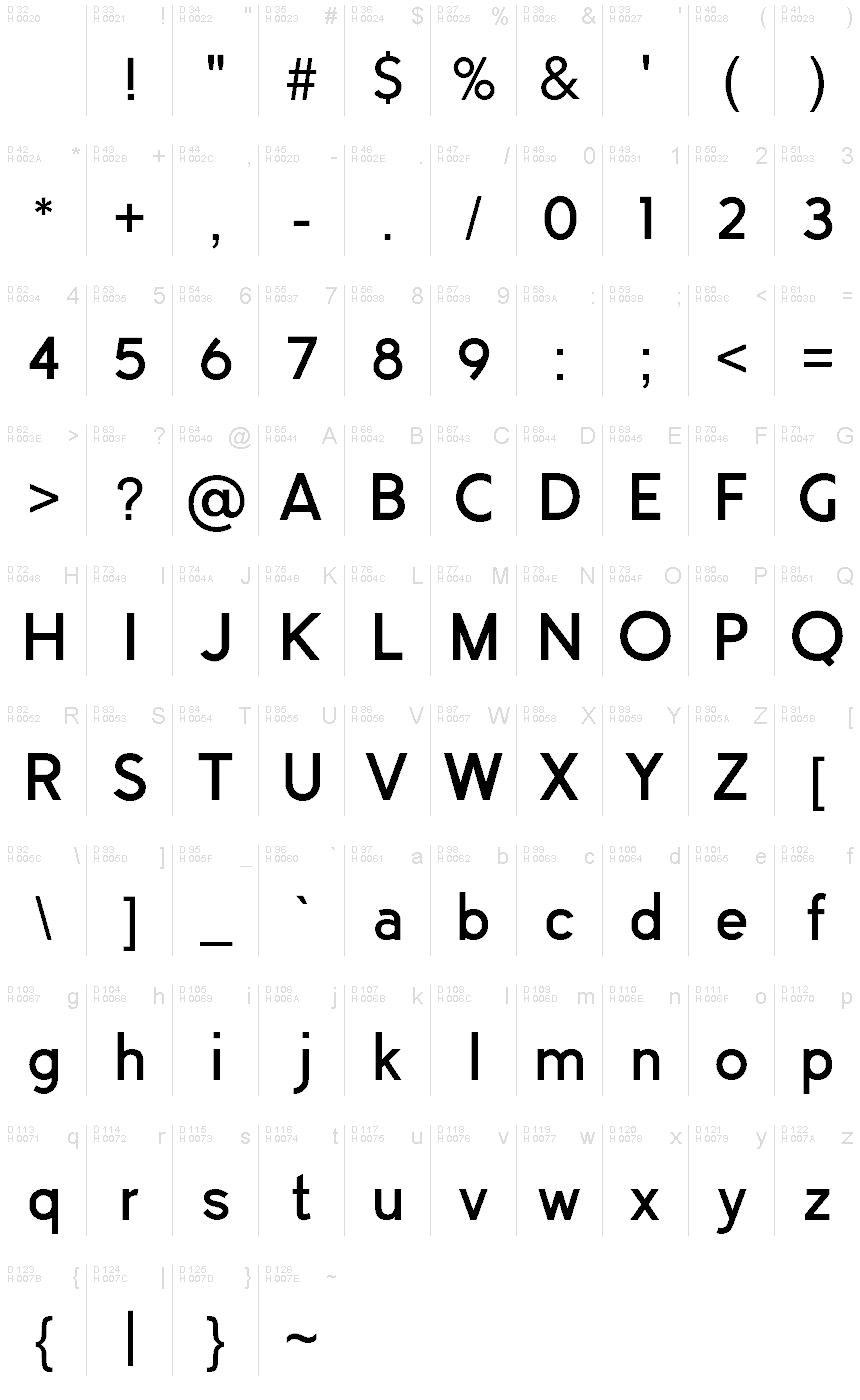
MANDISA Regular
Mandisa font by UI Creative is constructed in a clean geometric style for a professional structured appearance. The sans serif font has straight-line corners, even lines, and highly legible characters. Its modern look can be used with no second thoughts when clean designs need to be achieved.
Use the font in banners, notebooks, ebook covers, book pages, magazine pages, titles for educational material or websites. It’s perfect for business card typography and products packaging that require easy-to-read details. Non-business use cases are also feasible such as innovative movie posters or media advertisements. Mandisa is free to download and use today.